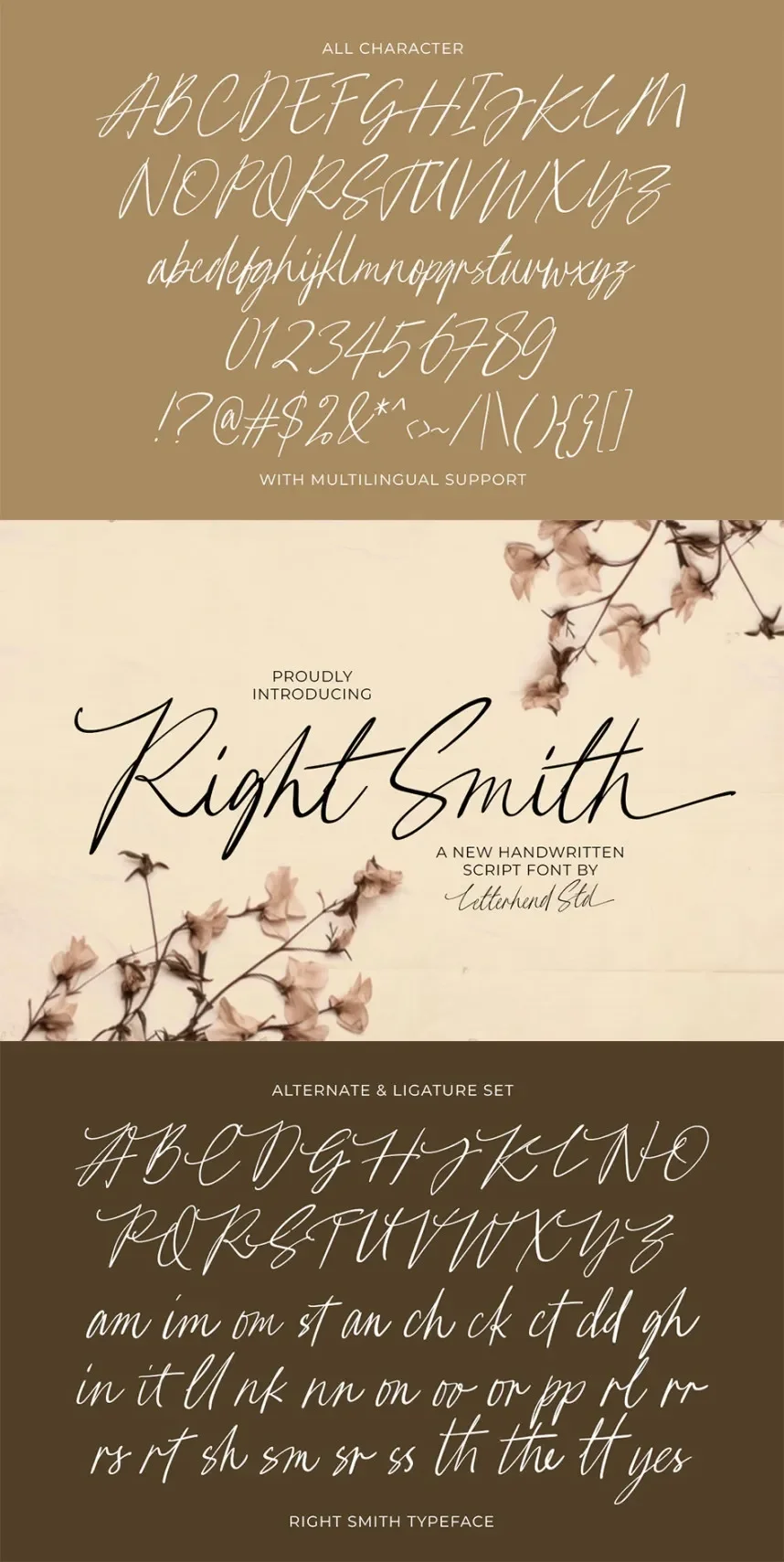
Right Smith Font solves spacing and readability issues common in casual handwritten typography. Many script fonts appear uneven in logos and printed materials.
Right Smith Font is a handwritten script font with relaxed curves, consistent stroke weight, and natural letter connections. The letterforms mimic pen writing while keeping spacing controlled.